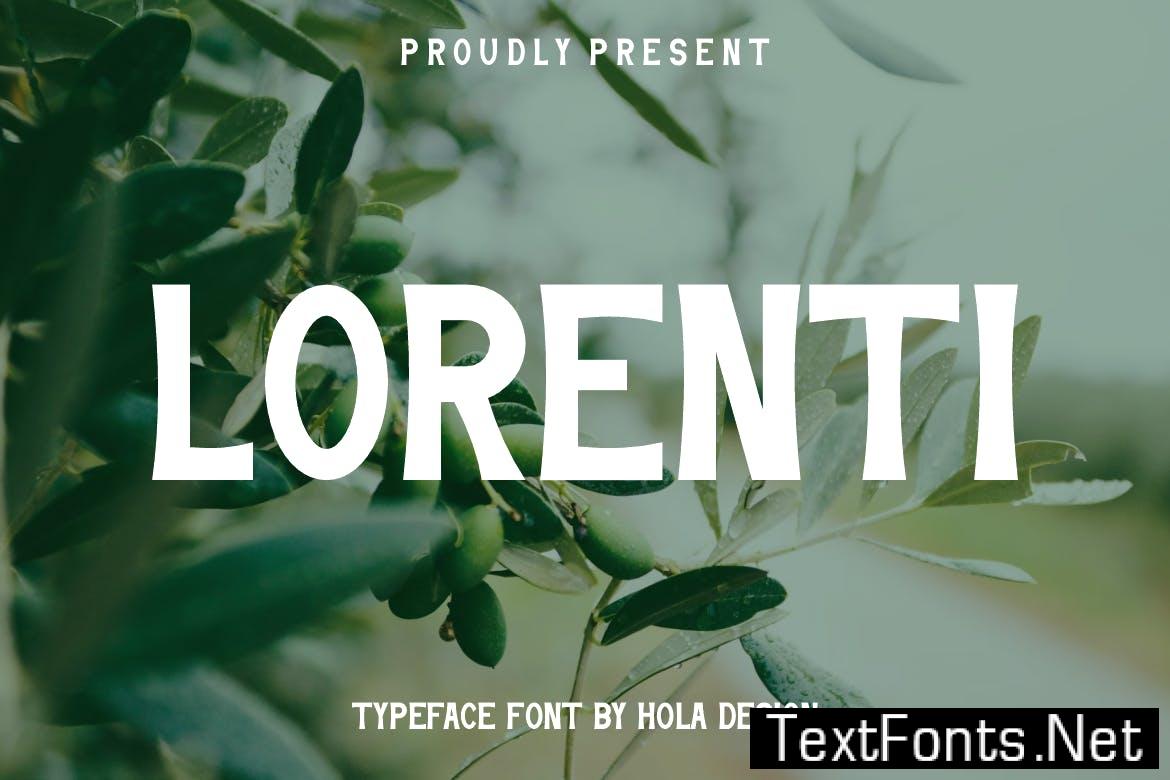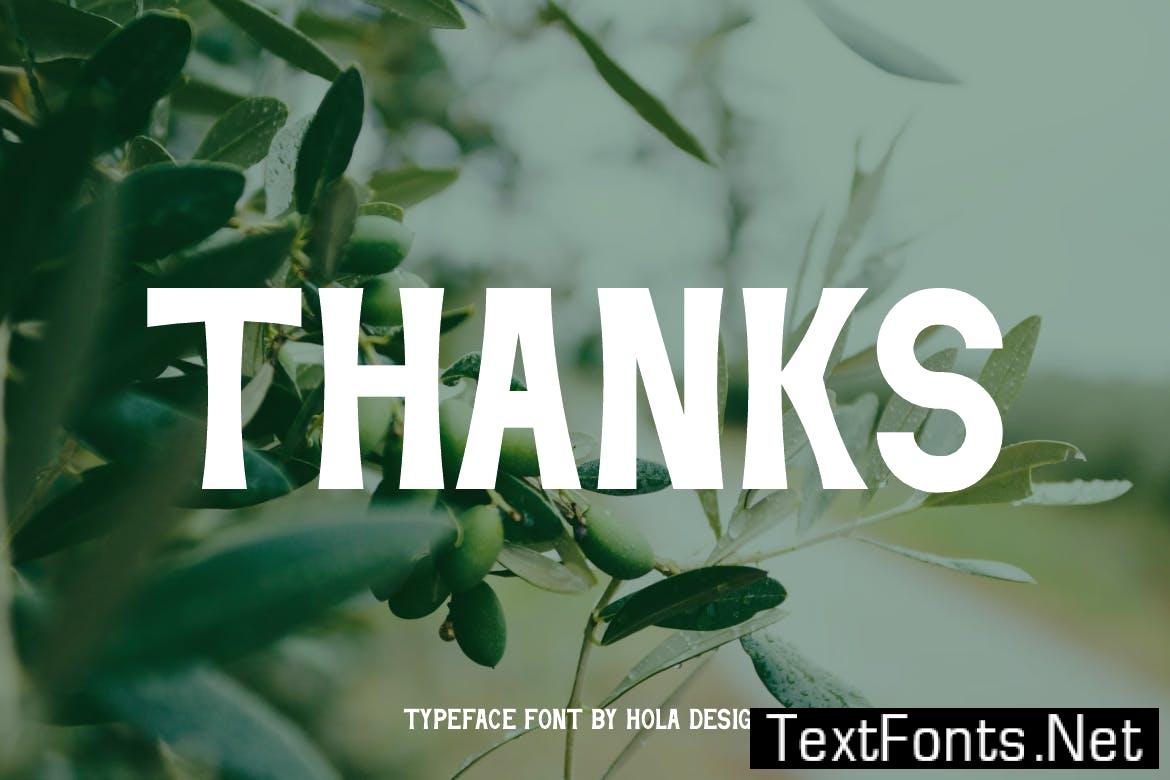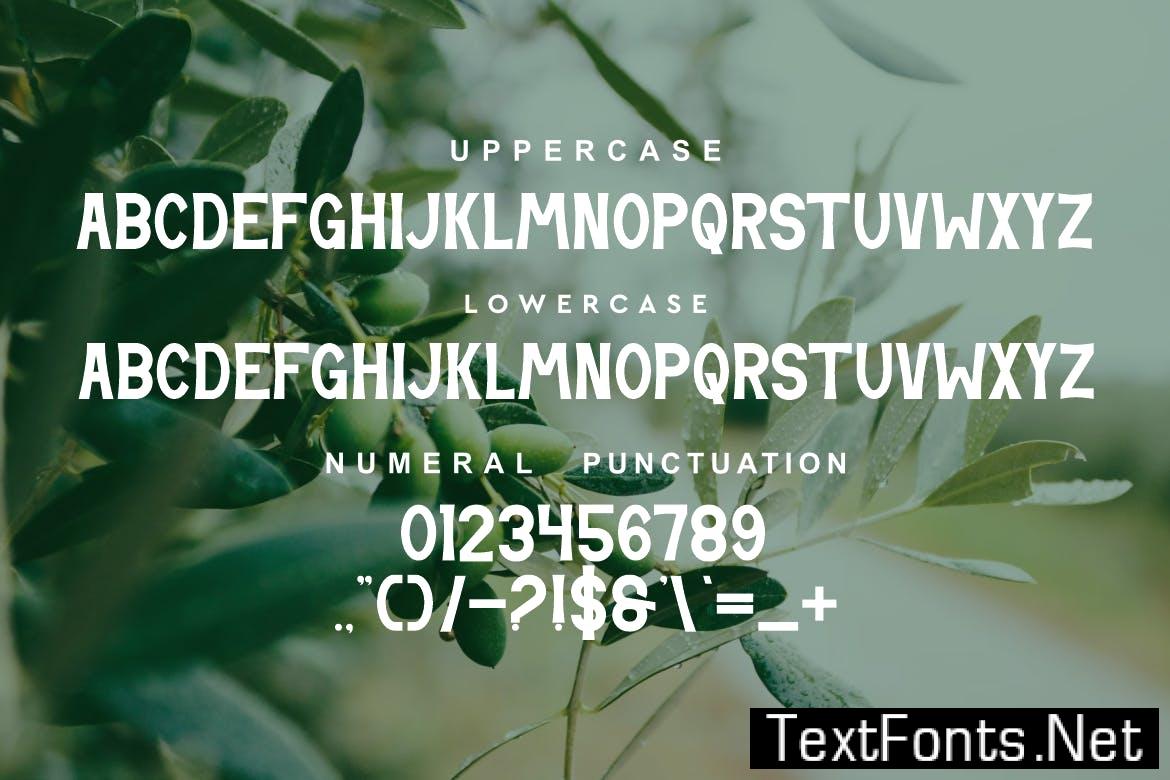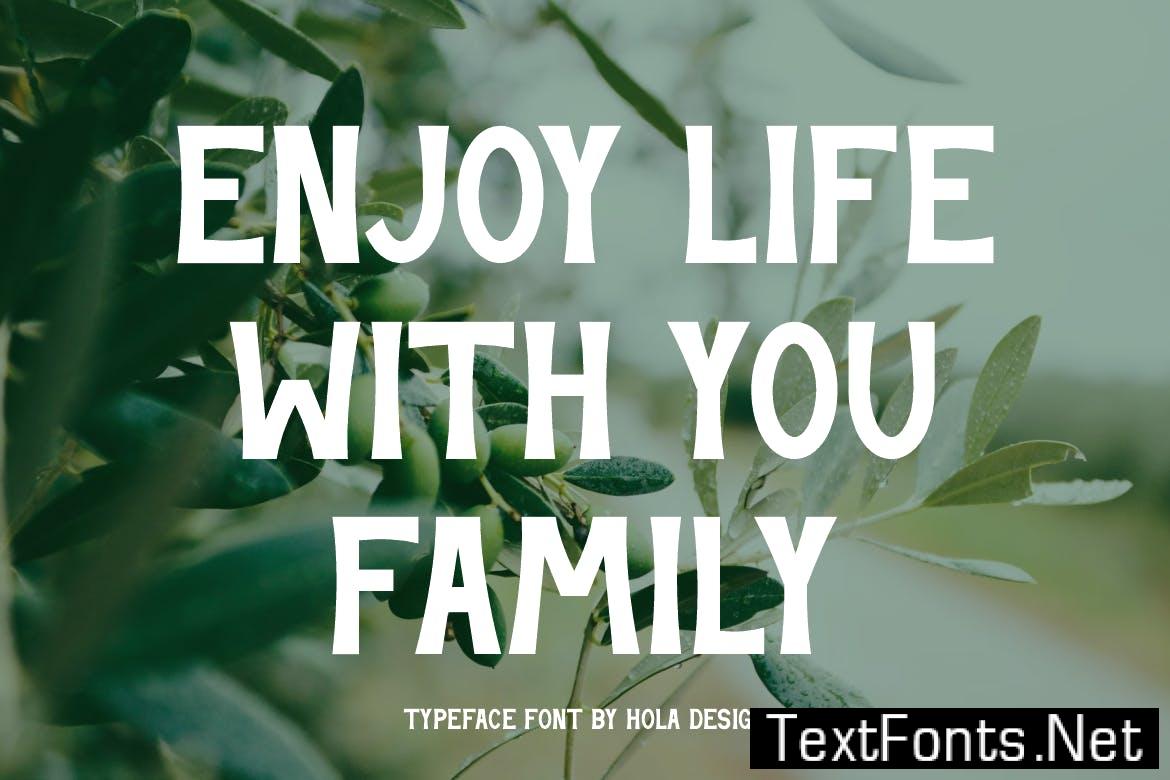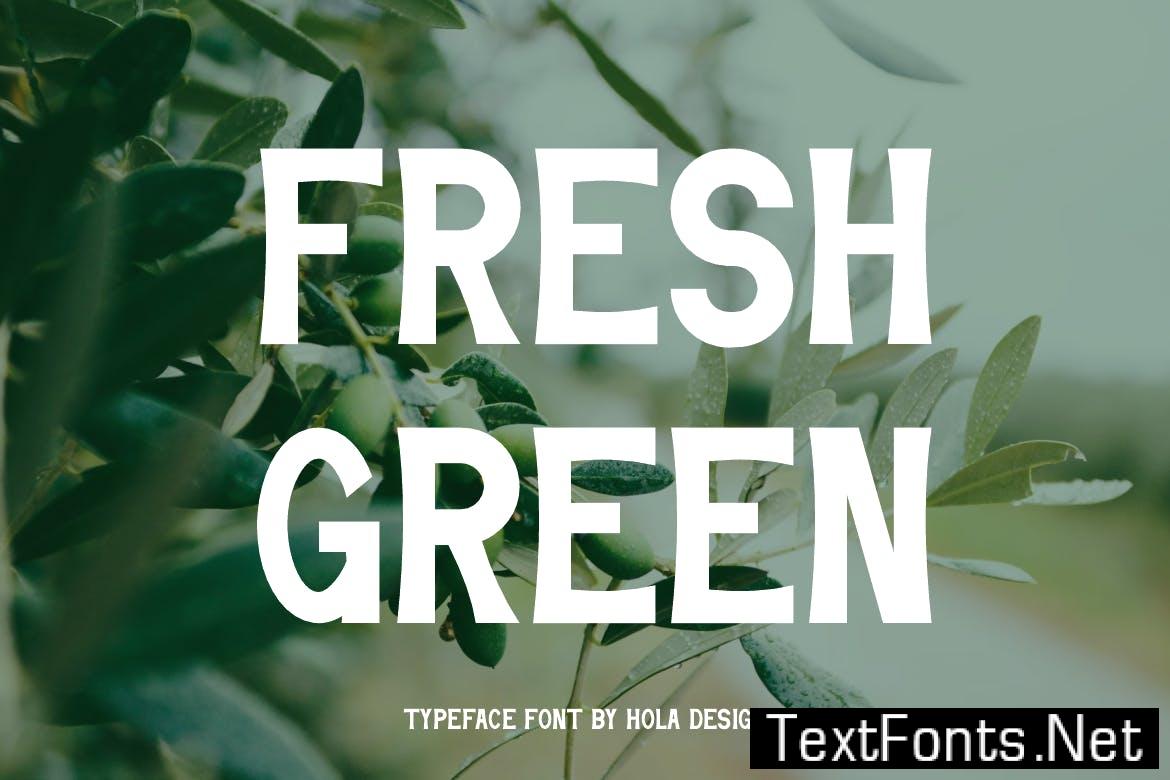
Lorenti – Typeface Font KN5QF55
**Lorenti – Typeface Font** Font is unique . Ready to use for your design like labeling, movie sceen, poster, movie title, gigs, album covers, logos, and much more.